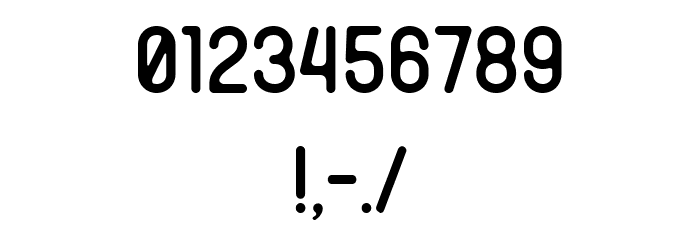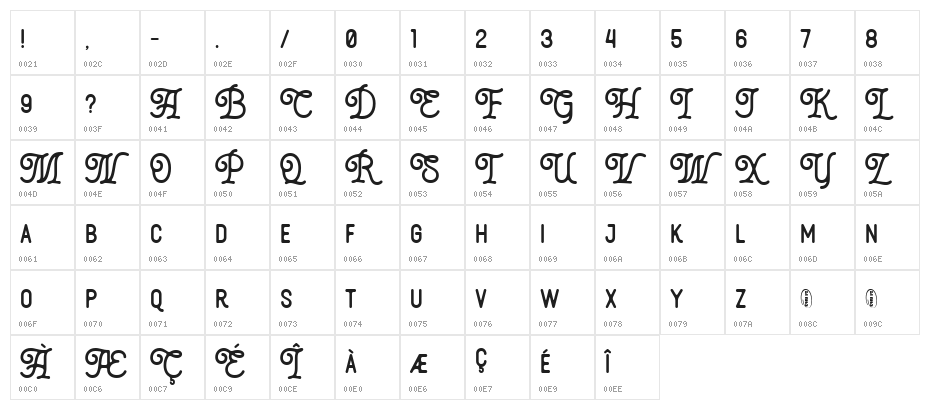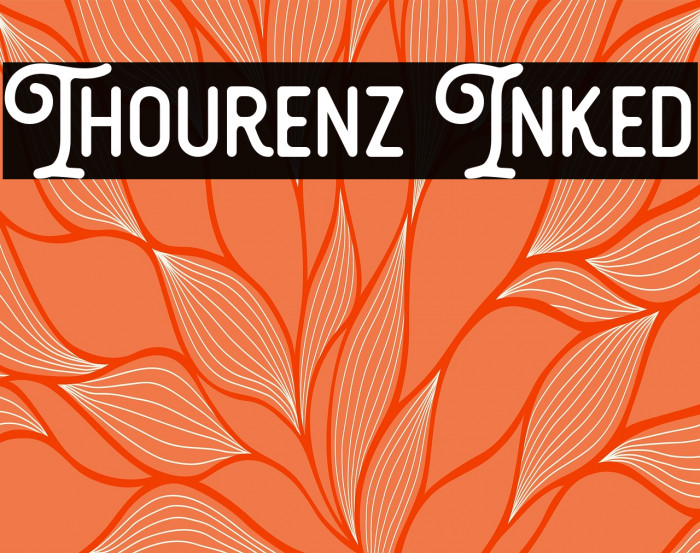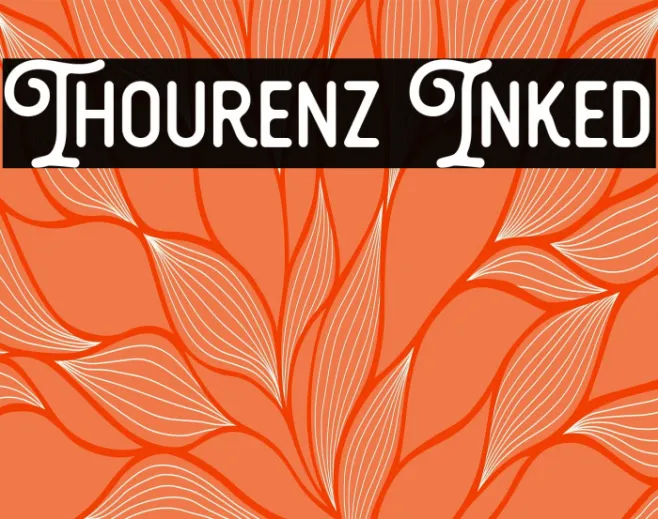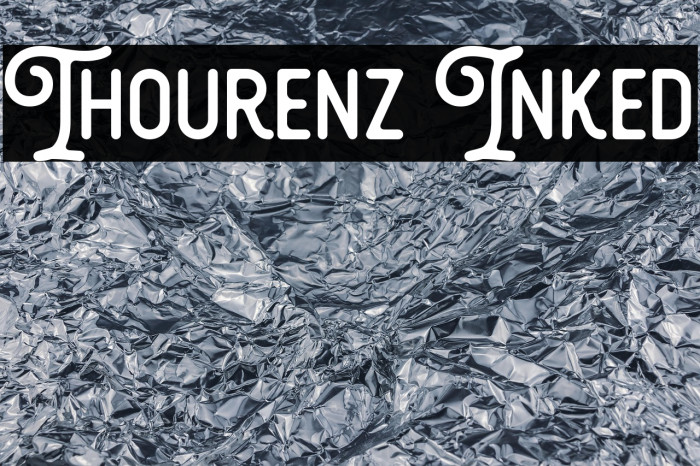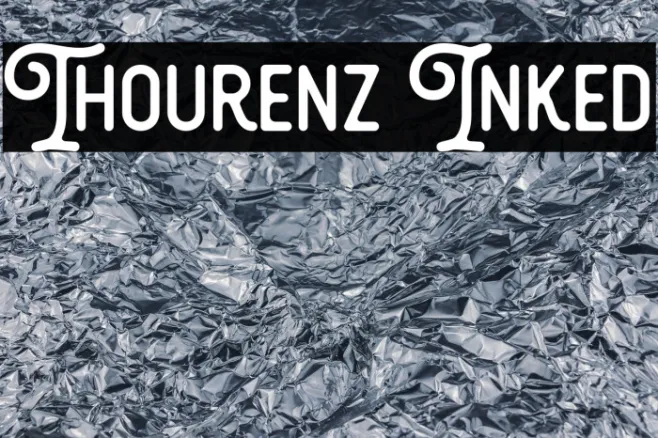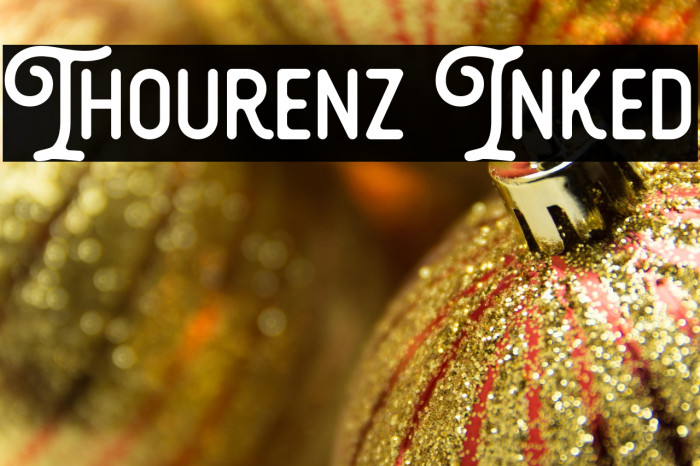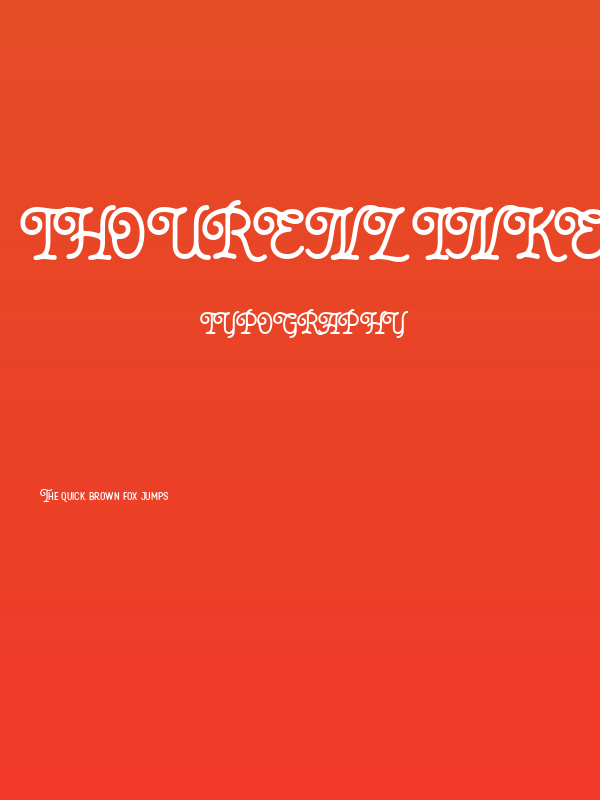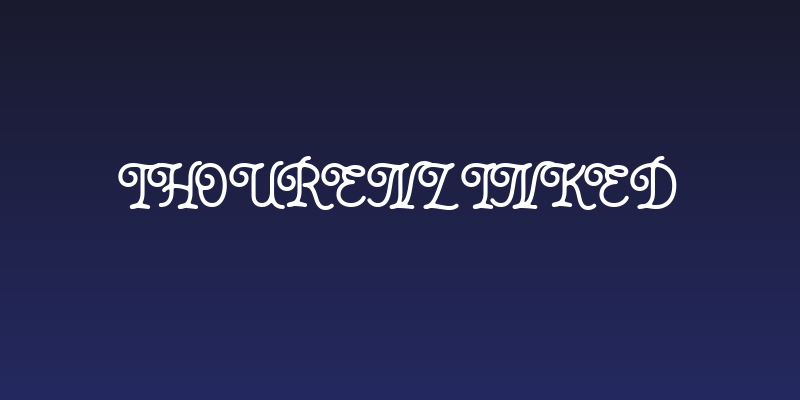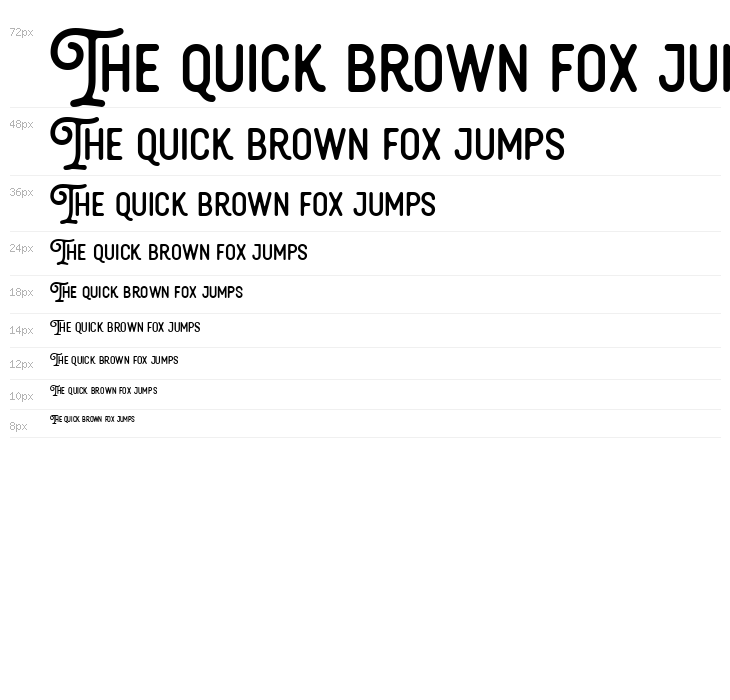
Thourenz Inked Font
Thourenz Inked Description
This font features a unique blend of decorative and modern styles. The uppercase letters in the first row exhibit an ornate, swirling design reminiscent of vintage calligraphy, adding a touch of elegance and flair. The second row presents a more straightforward, bold sans-serif style, offering a clean and modern look. The numerals are consistent with the sans-serif style, ensuring readability and simplicity. Special characters maintain the same boldness and clarity, making them suitable for various design needs. This font's versatility allows it to be used in both decorative and functional contexts, providing a balance between artistic expression and practical application.
| Proposed Projects | Ideal for wedding invitations, branding, headlines, and artistic projects requiring a mix of elegance and modernity. |